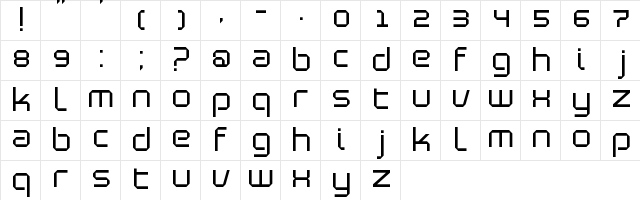
Blutter Slim Regular Free Font
Blutter Slim Regular
Blutter Slim Family
Design Context for Blutter Slim
Blutter Slim is a composed and adaptable typeface that performs quietly and consistently across a wide range of design contexts.